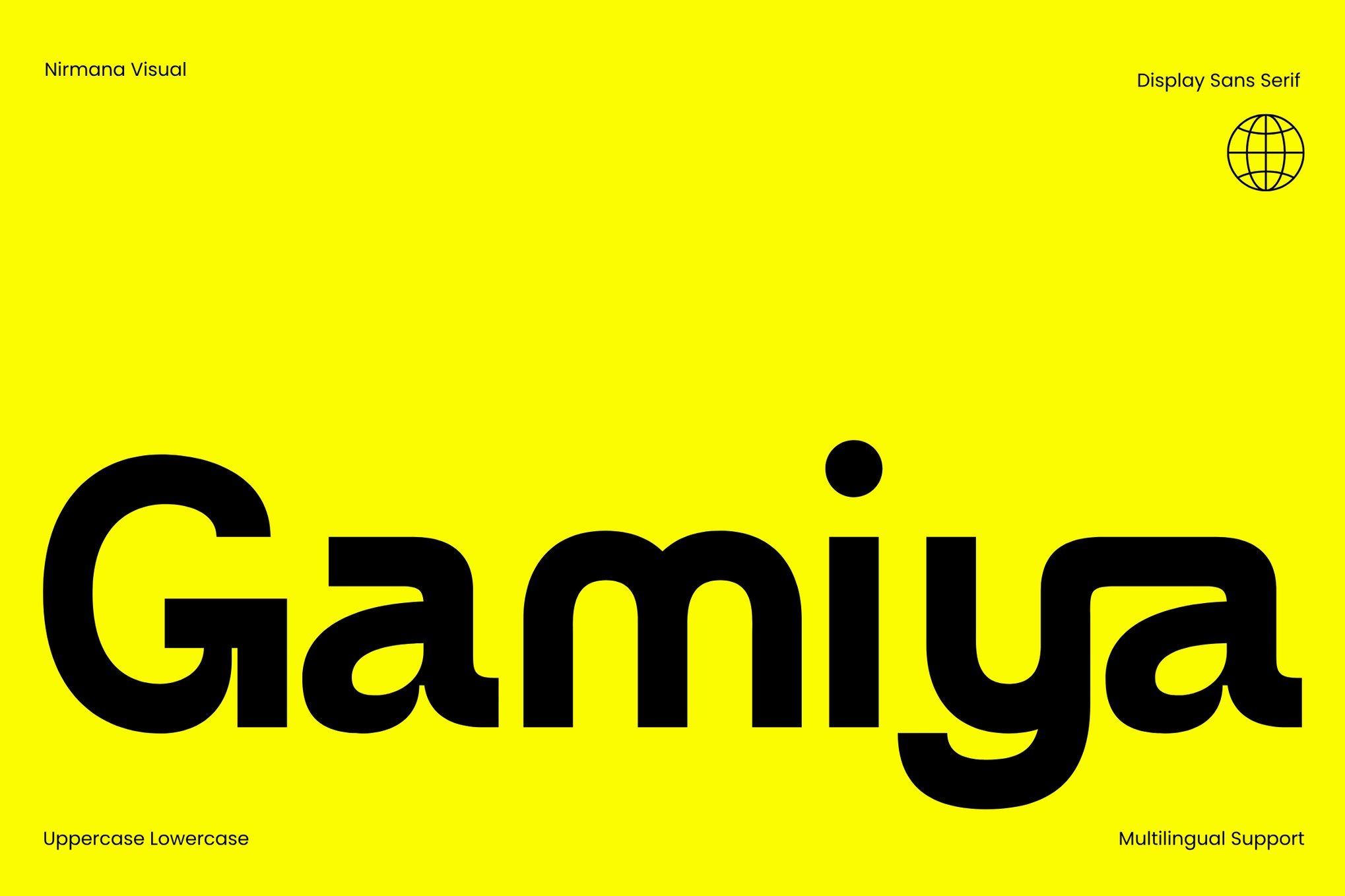
Gamiya – Modern Geometric Font
Gamiya – Modern Geometric Font is a professionally designed typeface that delivers clarity, structure, and consistent performance across various design applications. Gamiya Retro offers beautiful typographic harmony for a diversity of design projects, including logos & branding, social media posts, advertisements & product designs.